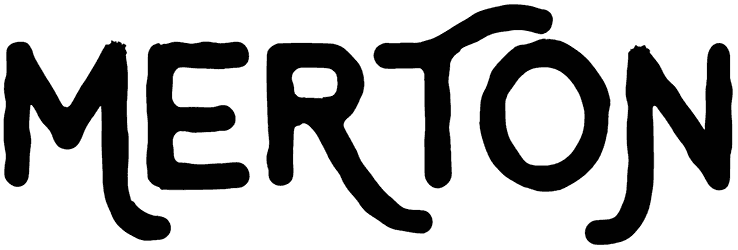
Angelo Woodhills Font
The juxtaposition of vertical lines with small distances in Angelo Woodhills has made it look like brush writings that have a personal and creative effect on a company’s brand image.
This adventure font can give an artistic depth to your brand and revive the sense of trust in the audience. For this reason, wherever less is more, such as logos, headlines, posters, and physical signs, you can use this attention-grabbing font.